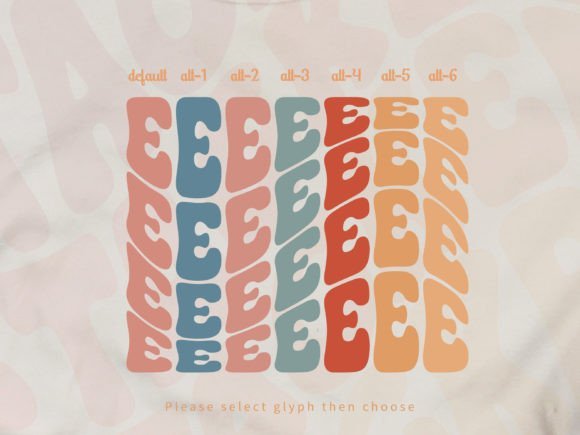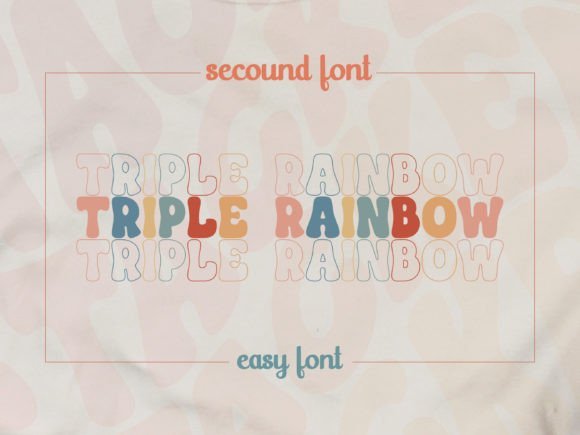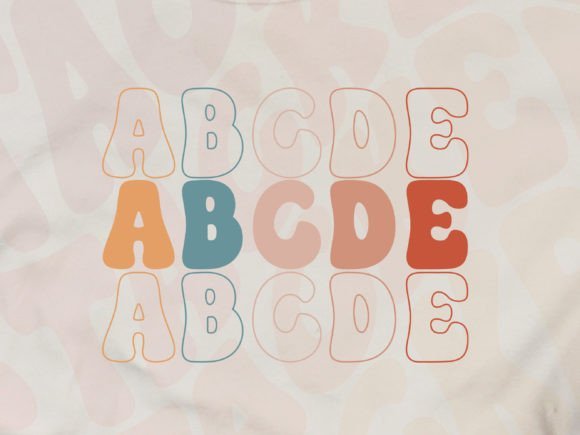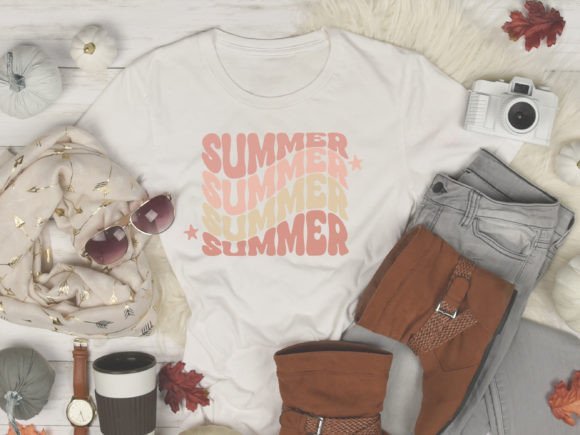
Simple Stacked Font
Simple Stacked font is a Groovy font style with a wavy effect and triple rainbow font. Its playful yet stylish look makes it perfect for retro-inspired projects and branding. This is trendy font fun and perfect for every design.